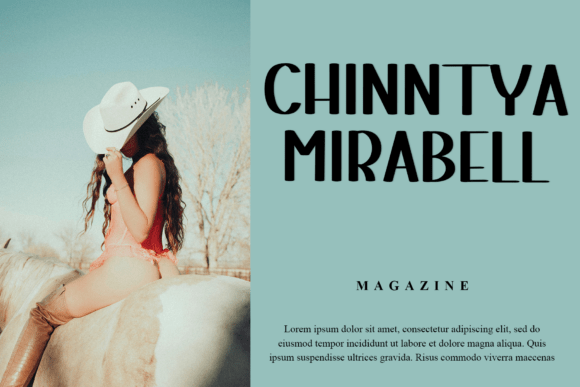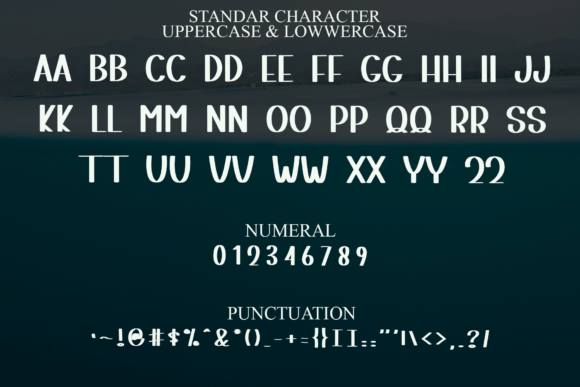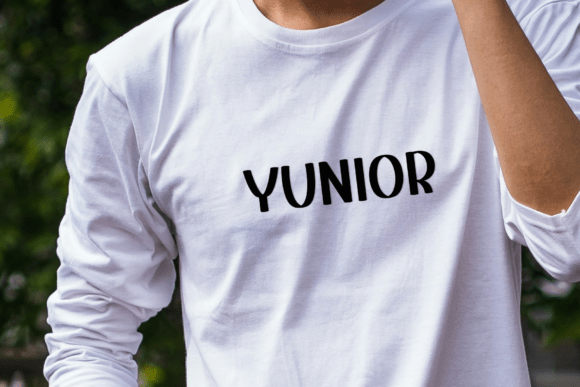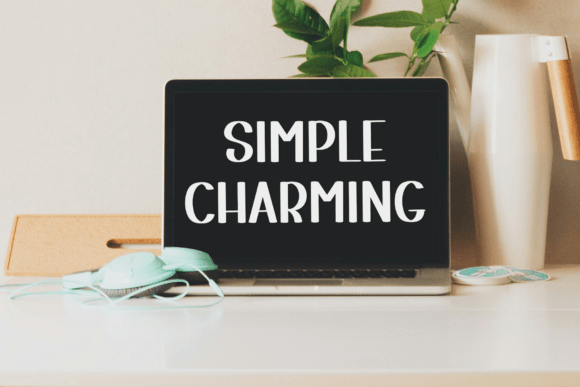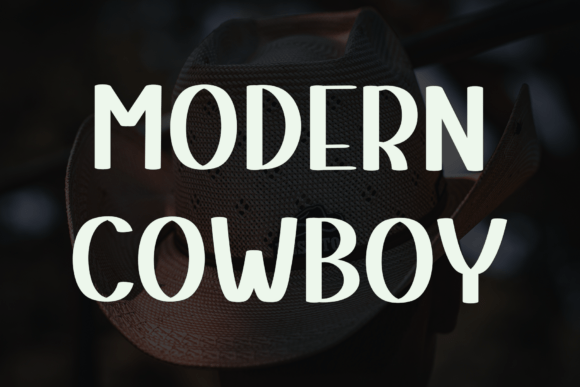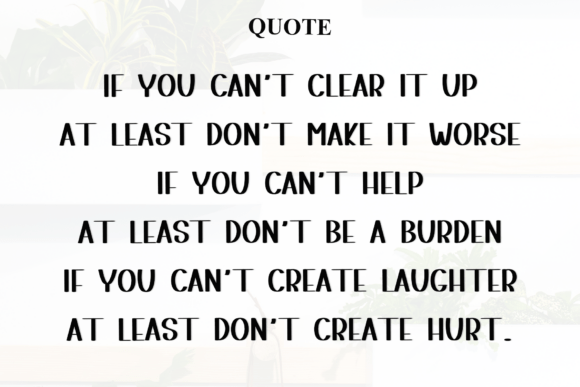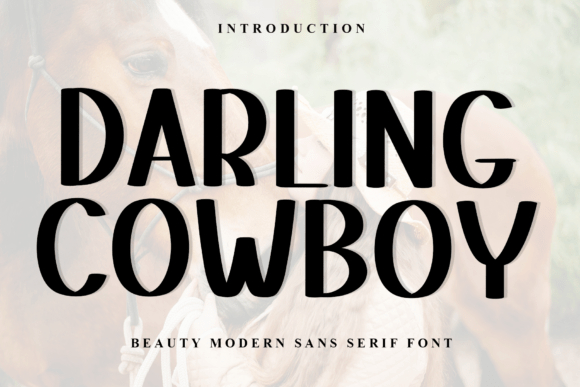
Introducing Darling Cowboy Font: A Festive and Merry Typeface for the Holiday Season
The holiday season is upon us, and with it comes the need for designers and crafters to create festive and engaging content that captures the spirit of the season. If you’re looking for a font that embodies the magic and wonder of the holidays, look no further than Darling Cowboy Font. This delightful typeface is designed to bring a touch of enchantment to your designs, making it perfect for greeting cards, gift tags, and holiday-themed projects.
Darling Cowboy Font is a decorative typeface that exudes a sense of whimsy and fun. Its unique design elements and ligatures are carefully crafted to evoke the nostalgia and cheer of the holiday season. Whether you’re creating holiday cards, gift tags, or social media graphics, this font is sure to add a touch of festive flair to your designs.
Darling Cowboy Font is a versatile typeface that is perfect for designers and crafters alike. Its decorative elements and whimsical flair make it an ideal choice for a variety of projects, including:
- Greeting cards: Create beautiful and festive holiday cards that will delight your friends and family.
- Gift tags: Add a personal touch to your gifts with custom gift tags that feature the Darling Cowboy Font.
- Holiday-themed projects: From social media graphics to website headers, this font is perfect for any holiday-themed project.
One of the best features of Darling Cowboy Font is that it is PUA (Private Use Area) encoded. This means that you can access all of the amazing glyphs and ligatures with ease, making it simple to create beautiful and complex designs. With PUA encoding, you can:
- Easily access alternative characters and ligatures.
- Create complex designs with ease.
- Save time and effort when working with your designs.
Bring a Cheerful and Nostalgic Ambiance to Your Words
Darling Cowboy Font is designed to bring a cheerful and nostalgic ambiance to your words. Its unique design elements and ligatures are carefully crafted to evoke the feeling of a bygone era, making it perfect for creating holiday content that feels warm and inviting. Whether you’re creating holiday cards, gift tags, or social media graphics, this font is sure to add a touch of magic to your designs.
Let Your Typography Shine
With Darling Cowboy Font, you can let your typography shine with the magic of Beautiful Font. This delightful typeface is designed to add a touch of enchantment to your designs, making it perfect for designers and crafters who want to create beautiful and engaging content. So why settle for a boring, generic font when you can add a touch of festive flair to your designs with Darling Cowboy Font?
In conclusion, Darling Cowboy Font is a festive and merry typeface that is perfect for designers and crafters who want to create beautiful and engaging holiday content. Its decorative elements and whimsical flair make it an ideal choice for a variety of projects, from greeting cards and gift tags to social media graphics and website headers. With its PUA encoding and easy-to-use design, this font is sure to bring a touch of magic to your designs. So why wait? Download Darling Cowboy Font today and let your typography shine with the magic of Beautiful Font!